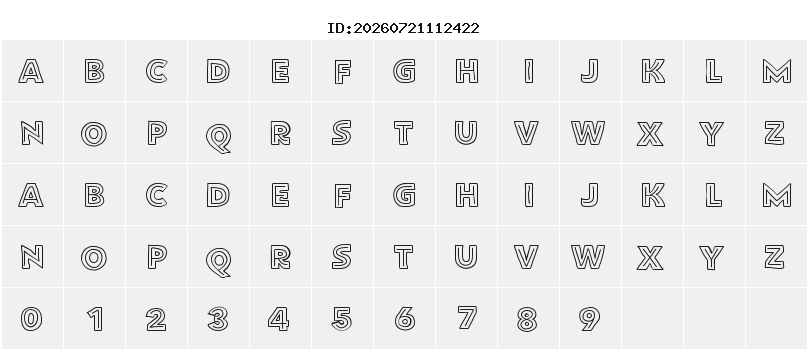
About FlatBreadInline.ttf
FlatBreadInline.ttf is a modern, elegant sans-serif font designed for ultimate readability and visual harmony. Perfect for branding, headlines, web design, and print materials.